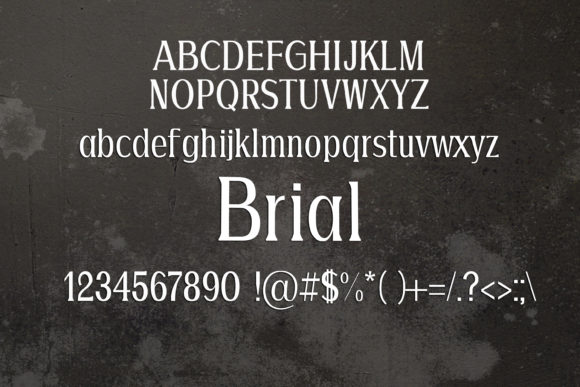
The Brial Font: A Game-Changer for Crafters and Designers
Have you ever been in the middle of a crafting project, pouring your heart and soul into it, only to realize that something’s missing? For me, that something was a unique font that could add a personalized touch to my designs. I was working on a custom wedding invitation, and no matter how hard I searched, I couldn’t find a font that stood out from the rest. That’s when I stumbled upon the Brial font, and let me tell you, it’s been a game-changer ever since! 🎉
What I Love About Brial Font
- ✨ Unique serif style that adds a touch of elegance to any project
- ✅ Highly versatile and works well for both digital and print designs
- 💡 Excellent for crafting projects, such as custom invitations, cards, and signs
- 🎨 Beautifully designed with attention to detail, making it perfect for high-end designs
While Brial font is an amazing addition to any design project, there are a few things to keep in mind:
- ⚠️ Some users have reported that the font can be a bit tricky to read in smaller sizes, so it’s best to use it for headlines or titles.
- 🤔 The font doesn’t come with a ton of variations, so you might need to get creative with editing and customizing it to fit your needs.
- Experiment with OpenType features, such as ligatures and stylistic alternates, to add more personality to your design.
The Story Behind Brial Font
Brial font was designed with the intention of creating a unique and elegant serif font that would add a touch of personality to any design project. The designer, inspired by classic typography and modern design trends, crafted Brial font to be both versatile and beautiful.
Q: What makes Brial font so unique?
A: Brial font’s unique serif style and attention to detail make it stand out from other fonts.
Q: Is Brial font suitable for digital designs?
A: Absolutely! Brial font works well for both digital and print designs, making it a versatile addition to any design project.
Q: Can I edit and customize Brial font?
A: Yes, you can edit and customize Brial font to fit your needs, but keep in mind that it might require some creative workarounds.